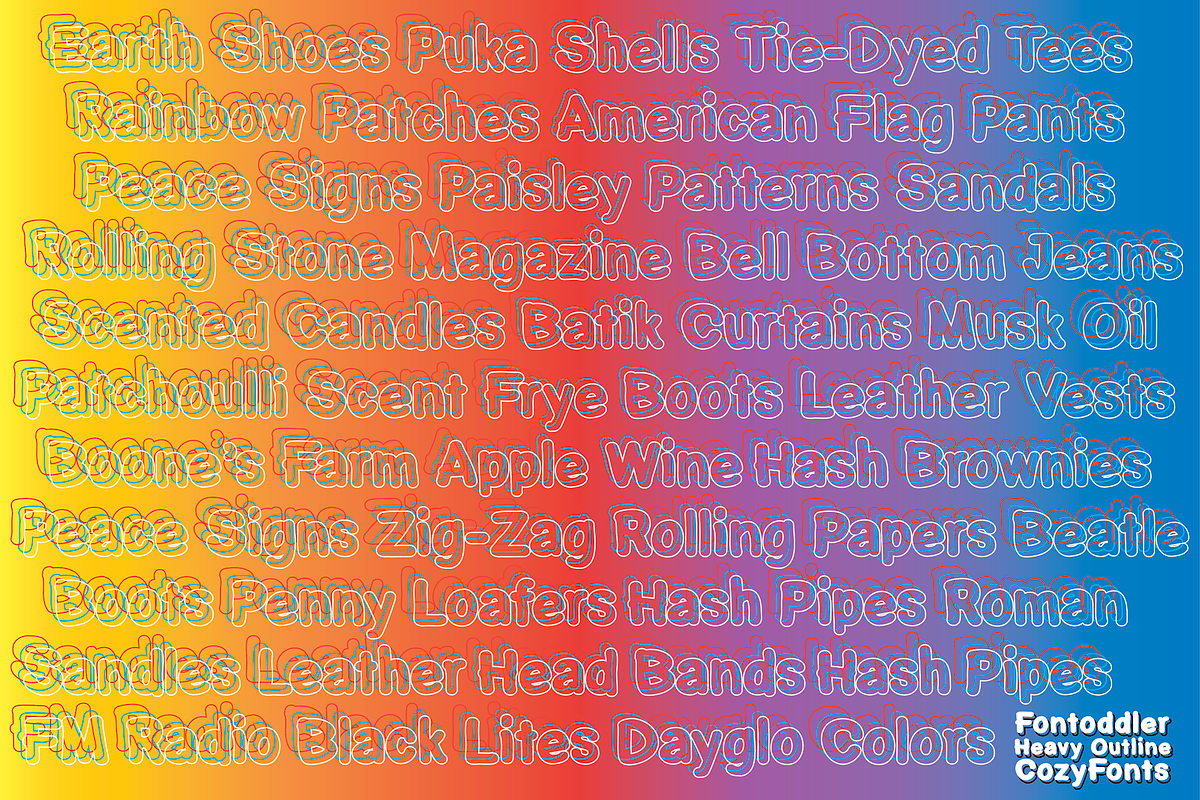
Fontoddler Heavy Outline
Fontoddler Font Family,
This font was created with the personality, in mind, of my two and a half year old granddaughter Chloe Bella. I believe strongly that fonts have personalities that’s why we refer to their members as ‘characters’ or to be more accurate, ‘glyphs’.
This font is playful, bold, colorful in form and design, a bit irregular, a bit informal, a bit irreverent, a bit humorous, a bit sassy, and a bit independent just like my little one. When used in color Fontoddler sings.
In just the nick of time she’ll be writing and creating visual words. At 2 she started recognizing many colors and identifying people, places, animals and objects and now she’s recognizing letters.
Fontoddler currently exists in 3 styles, Medium, Heavy and Heavy Outline. Naturally Heavy & Heavy Outline are congruous, ie. Fitting together.